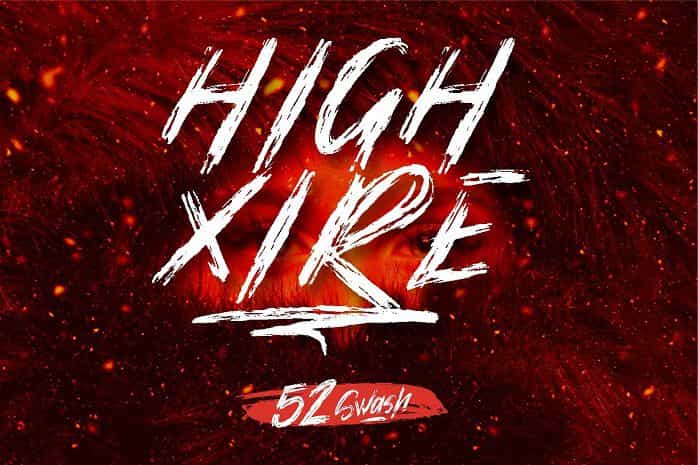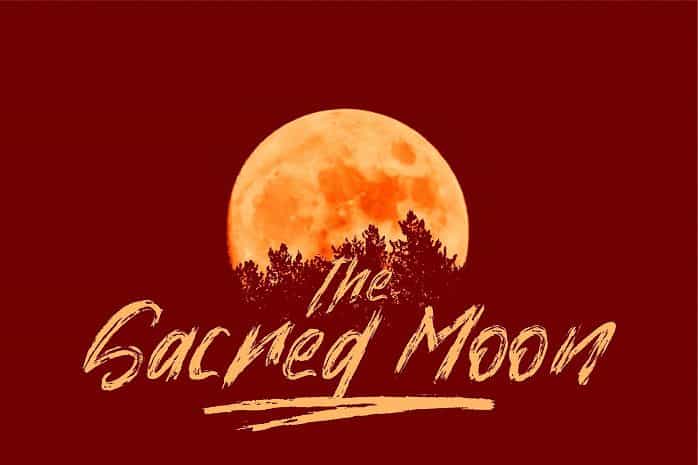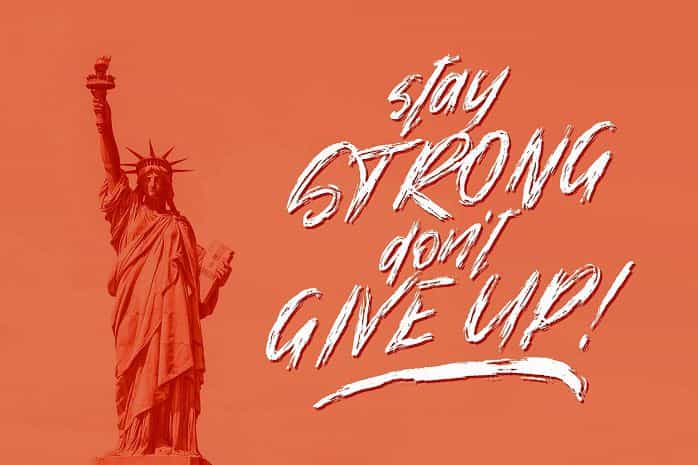
Introducing High Xire Font. HIGH XIRE has an amazing combination of curves and a fresh urban edge; it is a stylish which will definitely add the attractiveness to your logo designs, brand images, handwritten quotes, product packaging, merchandise & social media posts.